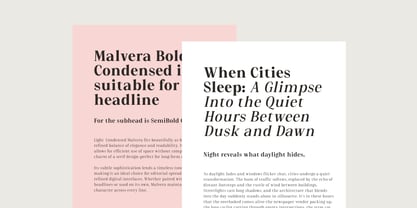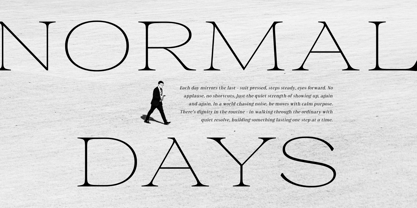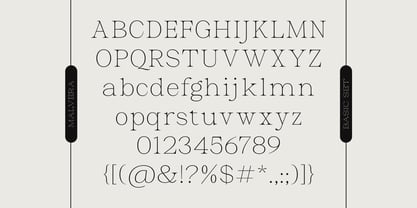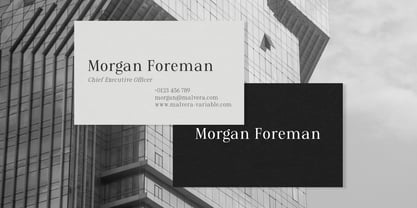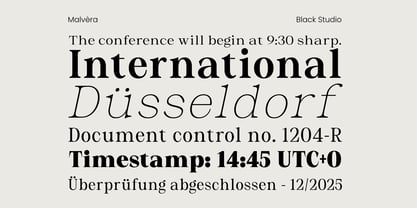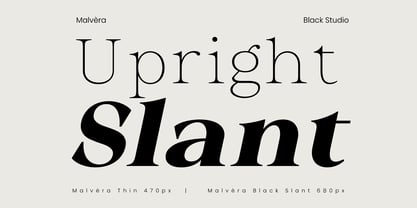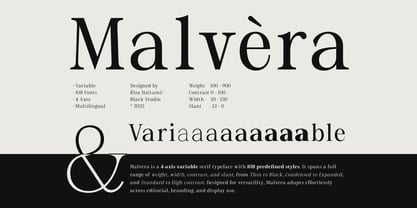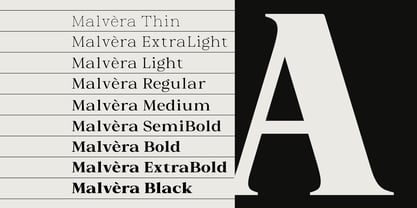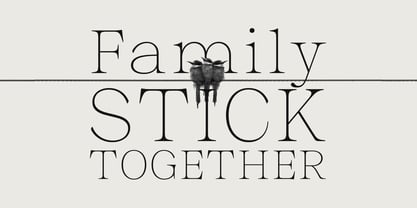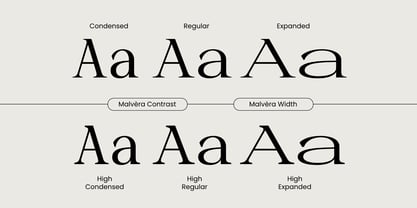
Malvera
The Malvera Font Family was designed by Reza Haitami and published by Black Studio. Malvera contains 109 styles and family package options. More about this family
Malvèra is a refined variable serif typeface that blends timeless elegance with modern versatility. With 108 styles across four axes—weight, width, contrast, and slant—it adapts seamlessly from Thin to Black, Condensed to Expanded, and Low to High contrast.
Designed with classic proportions, elegant serifs, and contemporary detailing, Malvèra works beautifully in editorial design, branding, book typography, and sophisticated display settings. Multilingual support ensures global usability, while its variable design offers full creative control.
Malvèra is more than a typeface—it’s a complete typographic system built for designers who seek both tradition and innovation.